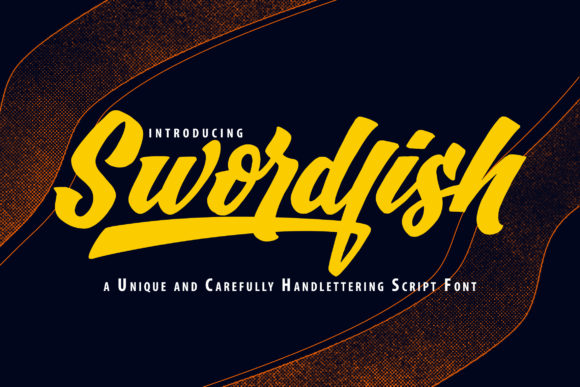
Are you ready to dive into the mesmerizing depths of Swordfish Font, the charming and casual handwritten creation of Vunira? This exquisite font exudes a heartwarming aura, inviting you to embrace its playful and personable nature.
Swordfish Font is more than just a collection of letters; it's a gateway to creativity and self-expression. With its gentle curves, charming imperfections, and irresistible flow, this script font adds a touch of whimsy to any project, making it stand out from the mundane.
Whether you're crafting eye-catching headlines or captivating blocks of text, Swordfish Font is your secret weapon. Its versatility shines through, adapting seamlessly to a wide range of styles and applications. Let your imagination run wild as you explore the endless possibilities this font offers.
Imagine transforming your social media posts into works of art, where your words dance across the screen with a captivating charm. Swordfish Font's playful spirit will infuse your content with a personality that resonates with your audience.
But it's not just about aesthetics; Swordfish Font is also incredibly functional. Its meticulously designed characters ensure readability even in the smallest sizes, making it perfect for extended blocks of text. Whether you're writing a captivating blog post or crafting a persuasive sales page, Swordfish Font will convey your message with clarity and style.
So, dive into the enchanting world of Swordfish Font and let its whimsical charm captivate your audience. Let your creativity flourish as you explore the myriad ways this font can transform your words into visual masterpieces.